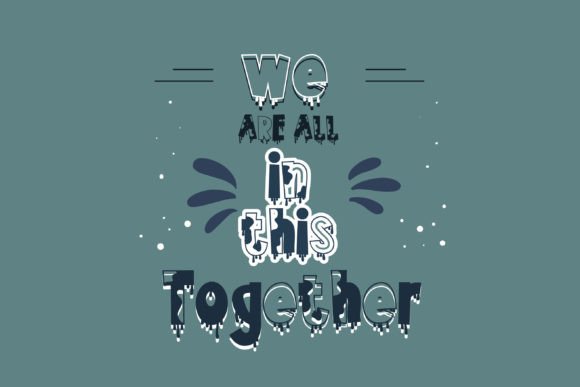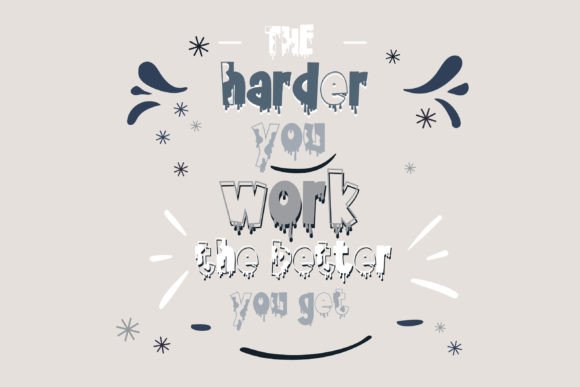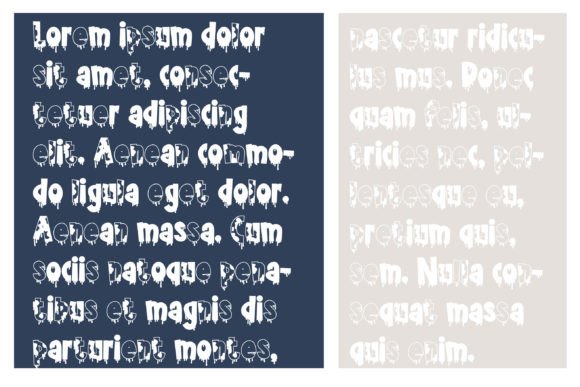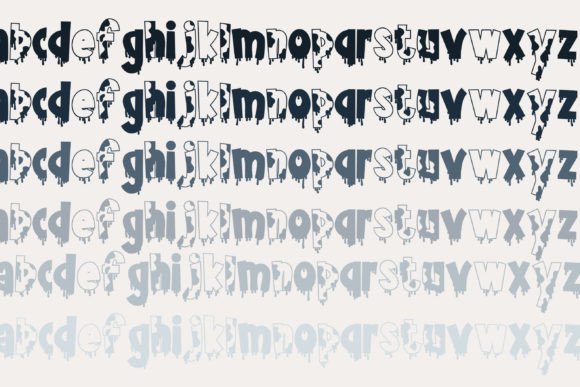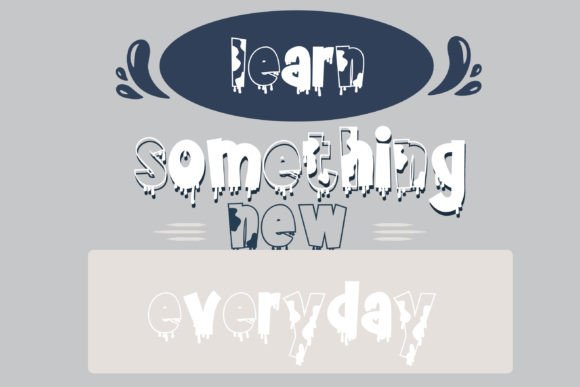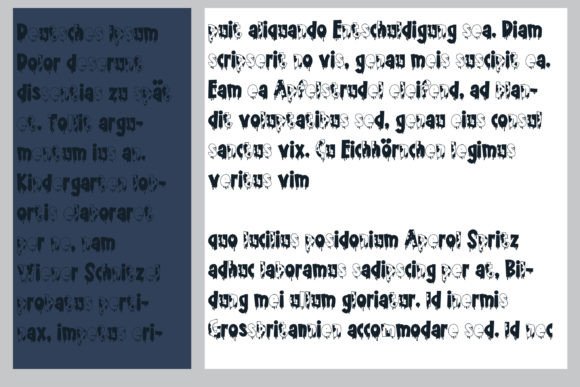
Introduction to Killer Cow Font
As a designer, there’s nothing quite like the thrill of stumbling upon a unique design resource that sparks a creative project. It could be a quirky texture, an unusual color palette, or a bold font that sets your imagination ablaze. For me, that moment came when I discovered the Killer Cow Font – a hand-crafted sans serif font that’s equal parts whimsical and eerie.
Key Features of Killer Cow Font
- High-quality design resource suitable for various creative projects
- Unique, bold, and playful style with a mix of modern and rustic elements
- Perfect for use in logos, branding materials, and other design elements
Honest Review: Killer Cow Font
As a designer, I’m always on the lookout for unique and high-quality fonts to elevate my creative projects. The Killer Cow Font caught my attention with its quirky and playful vibe. I was excited to dive in and see what it had to offer.
Here are some things that work well: ✨
- Uniqueness: The Killer Cow Font has a distinctive style that sets it apart from other fonts.
However, there are some limitations to consider: ⚠️
- Limited font weights: The Killer Cow Font only comes in a few weights, which may limit its versatility in certain design applications.
- Not suitable for formal projects: The font’s playful style may not be suitable for formal or professional design projects.
Overall, I think the Killer Cow Font is a great addition to any designer’s toolkit, especially for creative projects that require a unique and eye-catching font. Just be aware of its limitations and use it accordingly.
Tips for Getting the Most Out of Killer Cow Font
For the best results, use the Killer Cow Font on a transparent background to really make it stand out. You can also combine it with other fonts for a unique and creative look.
The Killer Cow Font is perfect for:
- Logo designs